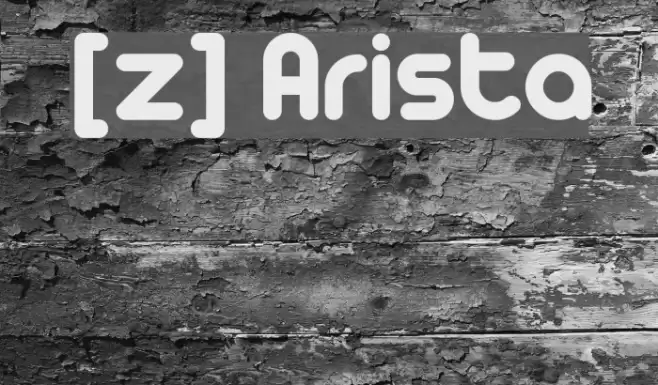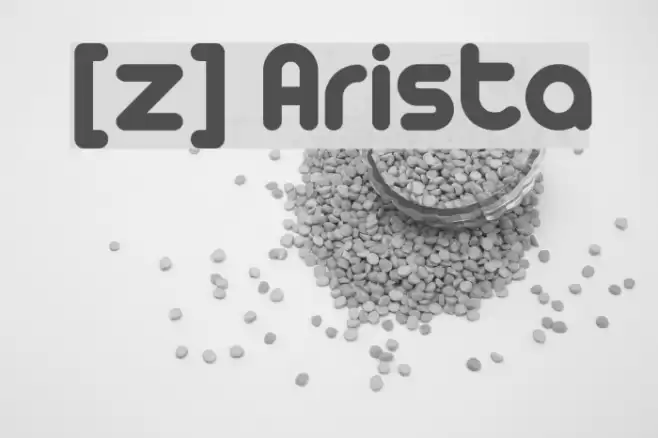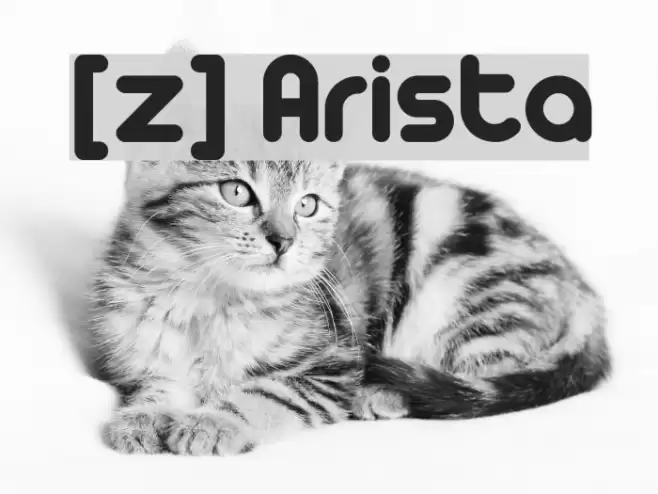
[z] Arista Font
[z] Arista Description
This font features a modern and playful design with rounded edges and a bold appearance. The characters are uniformly thick, giving a consistent and friendly look. The uppercase and lowercase letters maintain a cohesive style, with smooth curves and a slightly condensed form. The numerals and special characters follow the same rounded and bold aesthetic, ensuring readability and a contemporary feel. This font is ideal for projects that require a touch of fun and approachability, while still maintaining clarity and impact.
A modern, bold font with rounded edges and a playful style from Web 2.0 fonts.
- Proposed Projects: Ideal for children's books, playful branding, posters, and social media graphics.